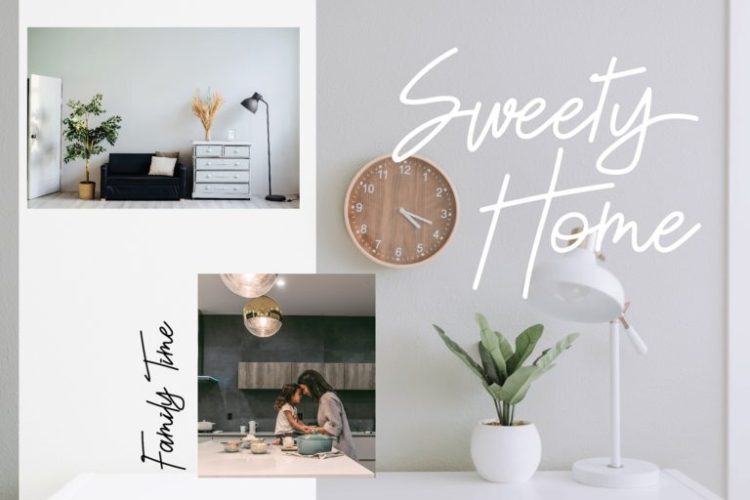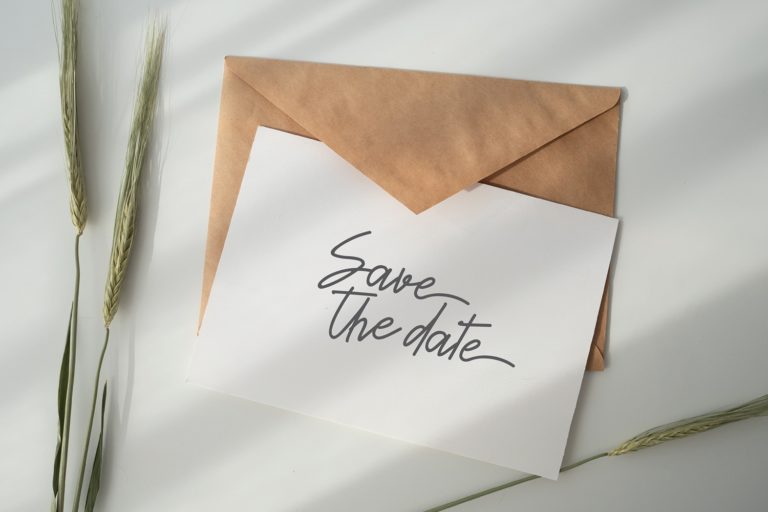
Lomesty Font
The warmest brands in the world have one thing in common: they feel like coming home. Lomesty Font captures this feeling perfectly — a casual, friendly handwriting typeface that radiates the kind of genuine warmth that makes customers feel welcomed, valued, and eager to come back again and again.
Lomesty sits in that particularly appealing sweet spot between casual and crafted — it looks like good handwriting rather than laboured calligraphy, spontaneous rather than mechanical, warm rather than formal. The letterforms have a natural bounce and rhythm that feels lively and genuine, while the consistent construction ensures legibility is never sacrificed for personality. There is a homemade quality to Lomesty that is entirely intentional and extremely effective: it communicates care, effort, and genuine craftsmanship in the way that only authentic handwriting can.
Independent bakeries, home bakers, and artisan confectionery brands find bakery logo design with Lomesty immediately communicates the handmade, with-love quality that distinguishes artisan food products from mass-produced alternatives. The font works beautifully on cake box labels, bakery bag branding, loyalty card design, and chalkboard menu typography that feels genuinely crafted. Children’s craft brands, activity kit companies, and educational toy businesses use Lomesty for its ability to feel fun and accessible while communicating quality and care.
Cozy lifestyle brands — home decor companies, candle businesses, tea brands, and slow-living content creators — find that Lomesty perfectly expresses the warmth and intentionality that their audiences seek. It pairs naturally with warm earthy tones, hand-drawn illustrations, and the quiet, considered brand aesthetic that encourages loyal, long-term customer relationships.